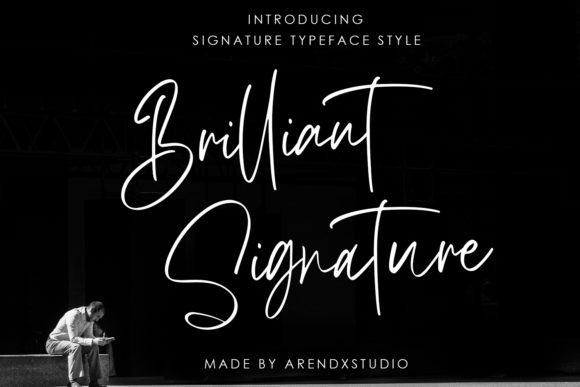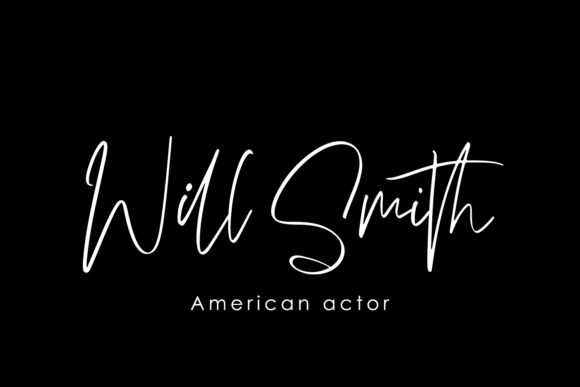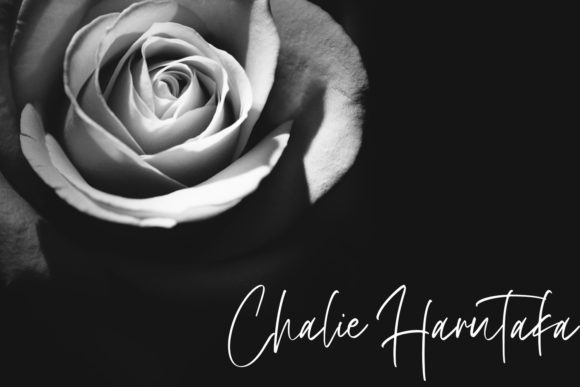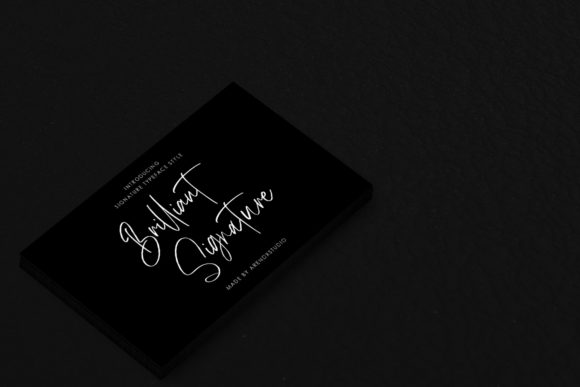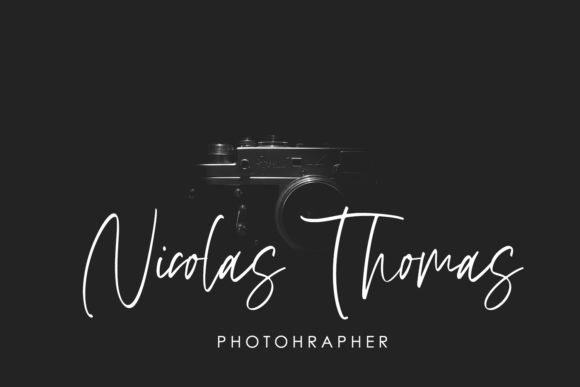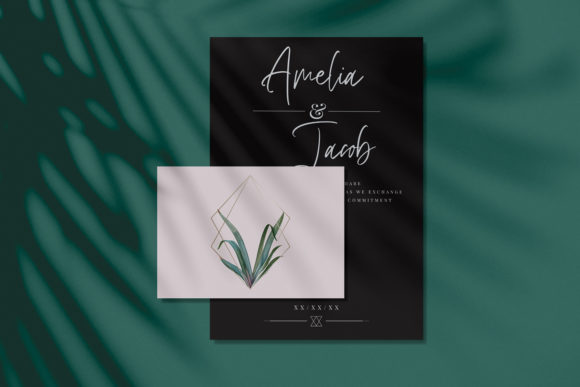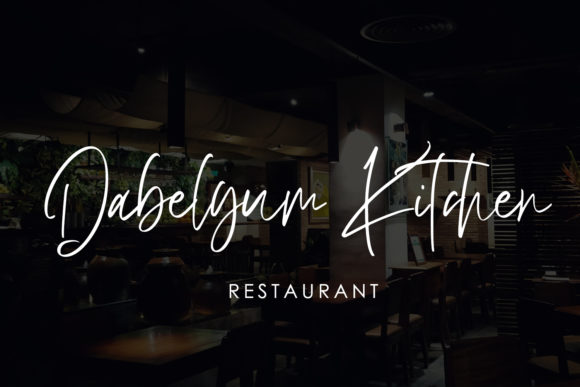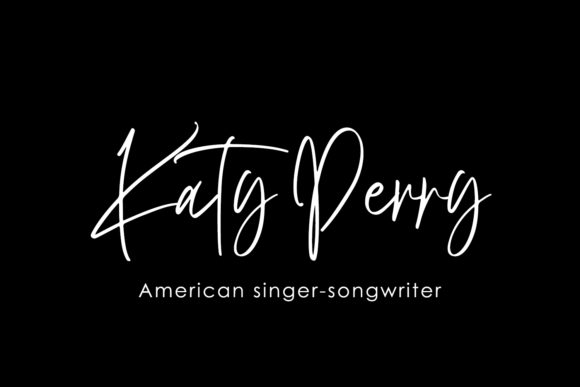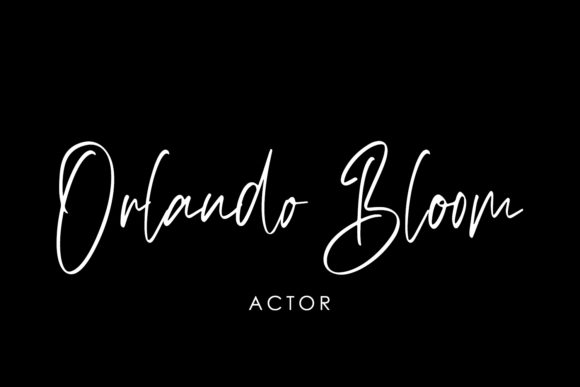
Brilliant Font
About Brilliant Font
Brilliant is a great namesake for this unique and contemporary script. It will turn any design idea into a true standout!